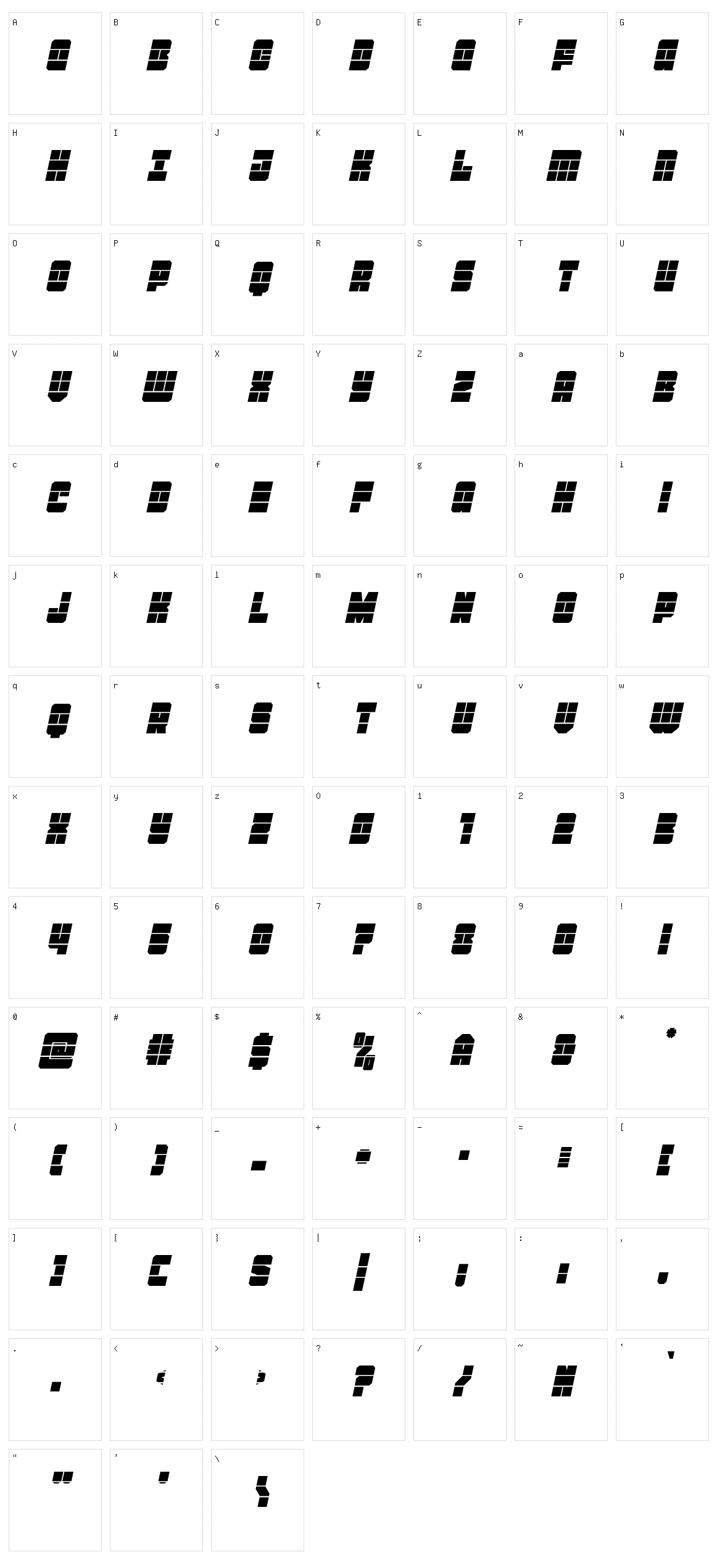
Homebase Font
This font comes with the following 32 versions: Regular, Italic, Semi-Italic, Super-Italic, Leftalic, Semi-Leftalic, Condensed, Condensed Italic, Expanded, Expanded Italic, Outline, Outline Italic, 3D, 3D Italic, Super 3D, Super 3D Italic, Laser, Laser Italic, Laser Super-Italic, Low Laser, Low Laser Italic, Low Laser Super-Italic, Duo-Laser, Duo-Laser Italic, Gradient, Gradient Italic, Halftone, Halftone Italic, Chrome and Chrome Italic.